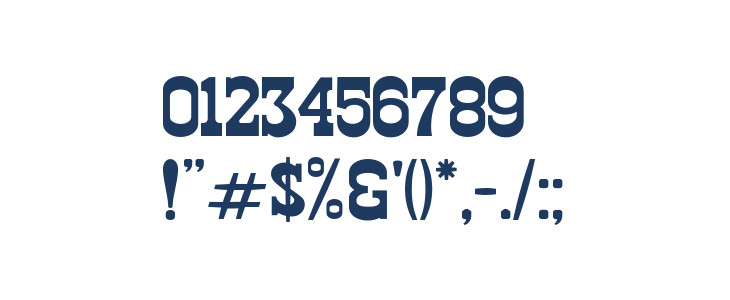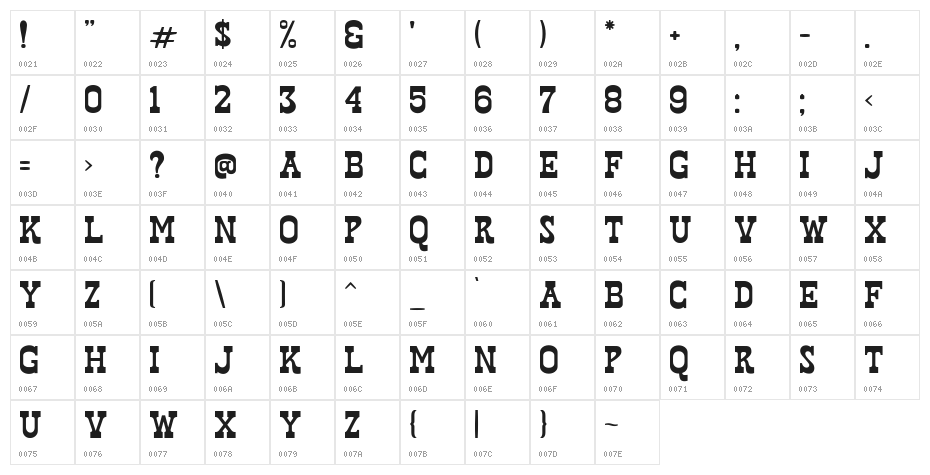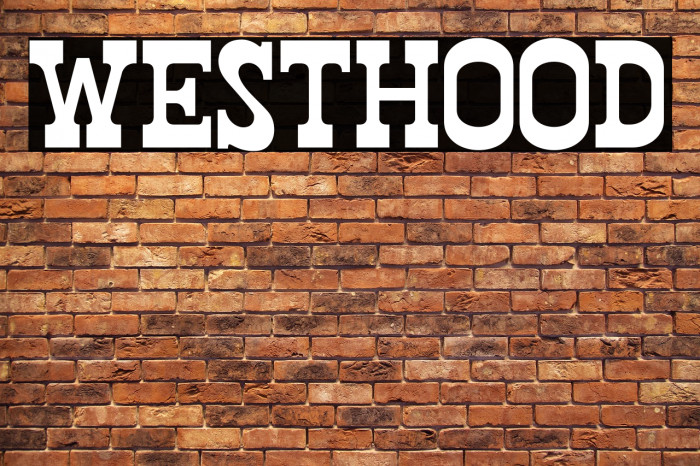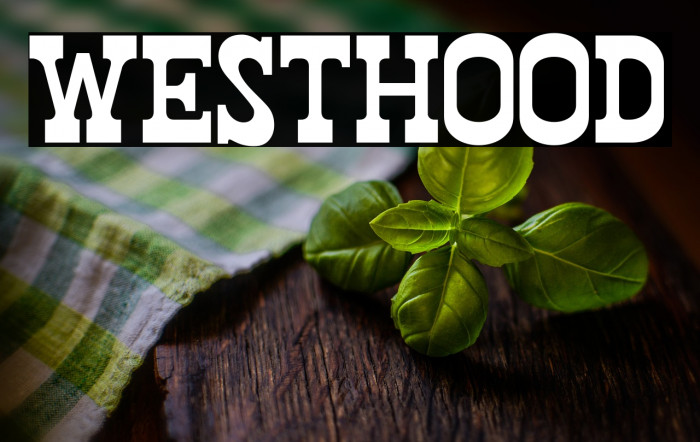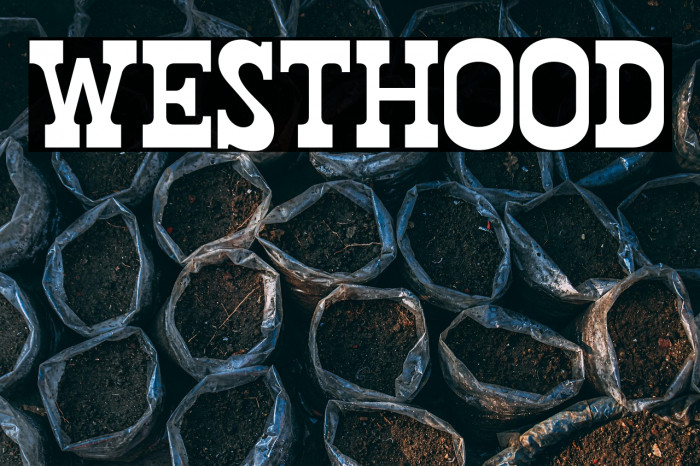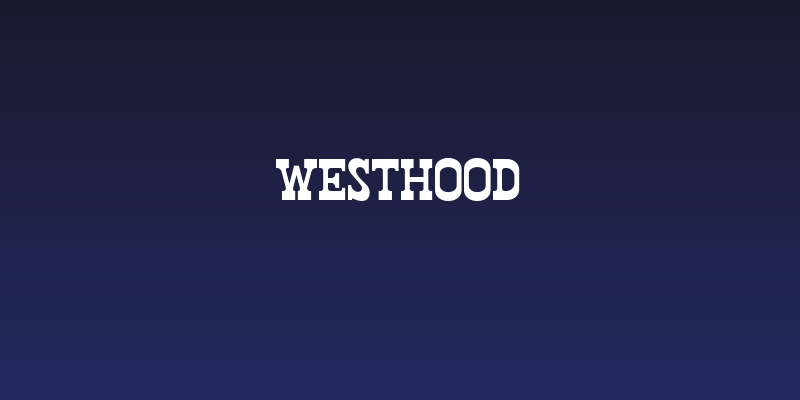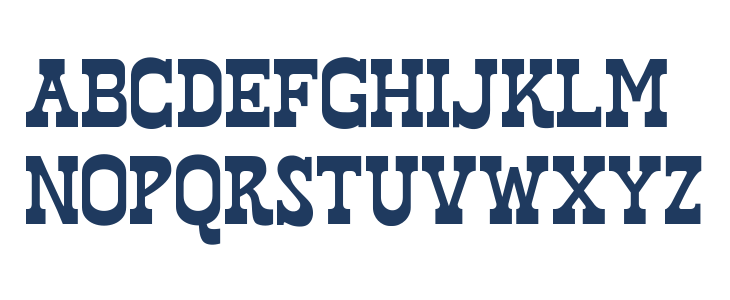
WestHood Font
WestHood Description
This font features bold, slab serif characters with a strong presence and a vintage feel. The uppercase letters are robust and commanding, while the lowercase letters maintain a consistent weight and style. Numbers are equally bold, ensuring readability and impact. The special characters are designed to complement the overall aesthetic, with a cohesive look across all symbols. The font's thick strokes and minimal contrast make it ideal for creating a striking visual impression.
Overall StyleVintage
Proposed ProjectsIdeal for posters, headlines, branding, and any project requiring a strong, vintage aesthetic.